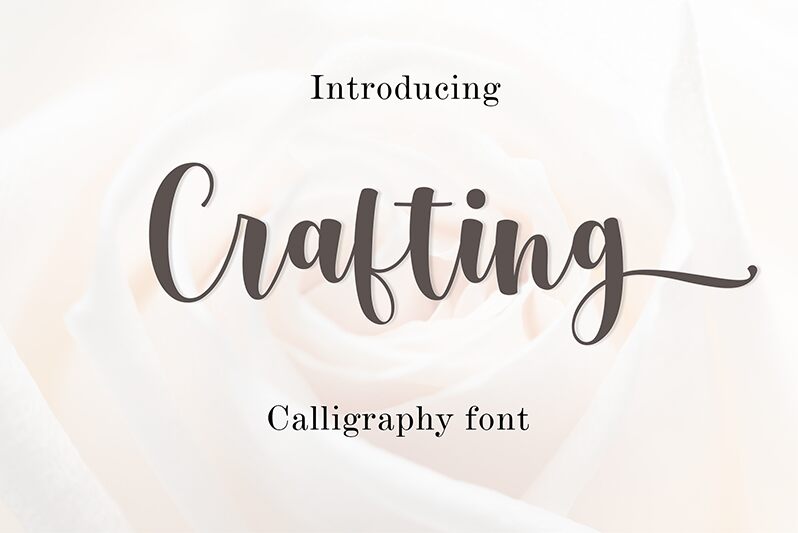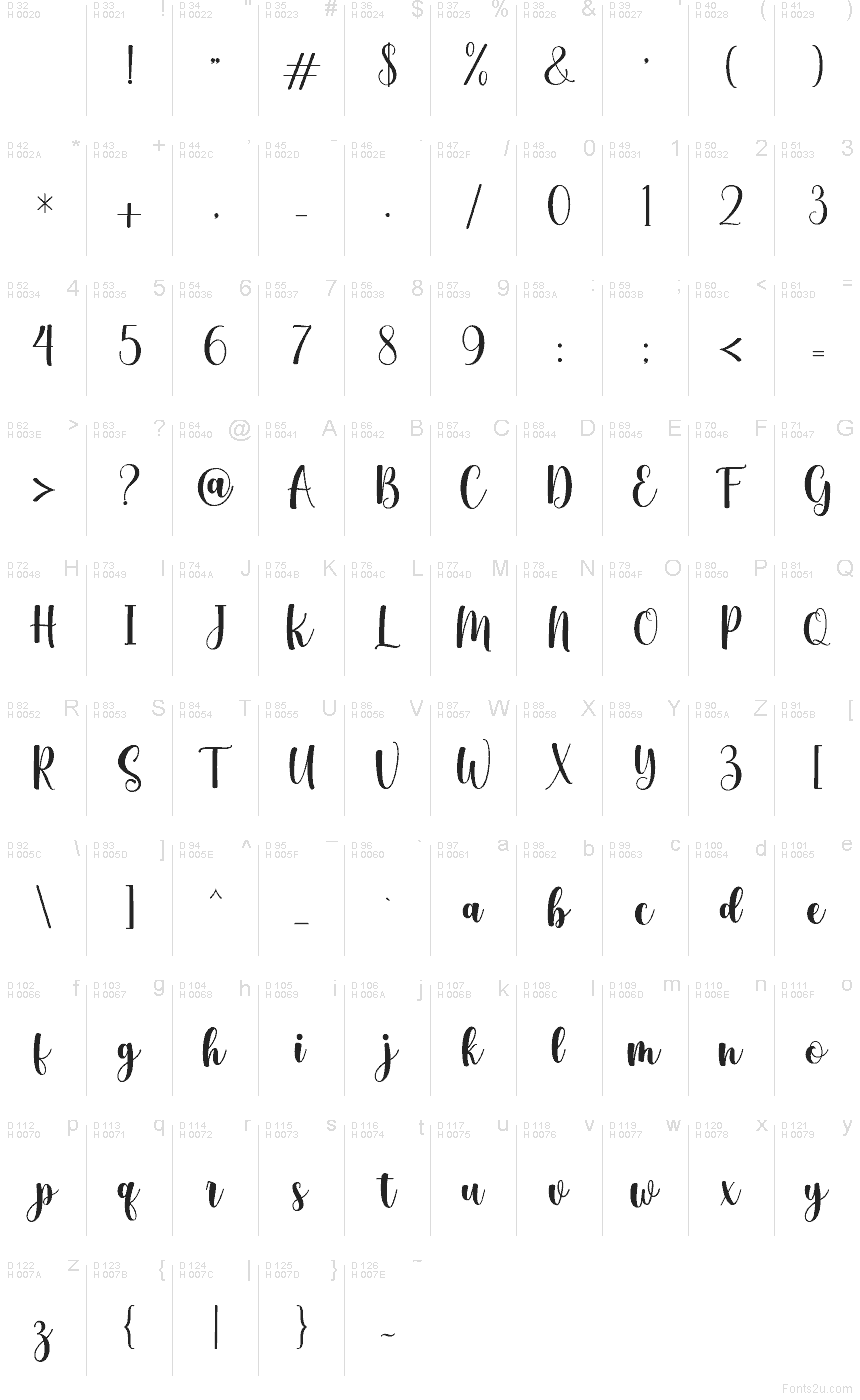
Crafting
Crafting font by Amarlettering - Takiy is a free calligraphy font that feels like it was brushed straight onto smooth cardstock. Its flowing connections, generous curves, and playful baseline give every word a hand-lettered warmth, like ink that’s just dried on a wedding envelope or gift tag. The strokes are bold yet soft, so your text stays legible even at smaller sizes while still looking lush and handmade.
Using Crafting, you can bring that cozy, DIY charm to logos, invitation suites, greeting cards, product packaging, social media graphics, and Cricut or Silhouette projects. This free font shines on anything related to weddings, baking, crafts, or home décor. For a clean, modern balance, pair Crafting with a simple sans serif for body copy and let this script take the spotlight in headlines or names.